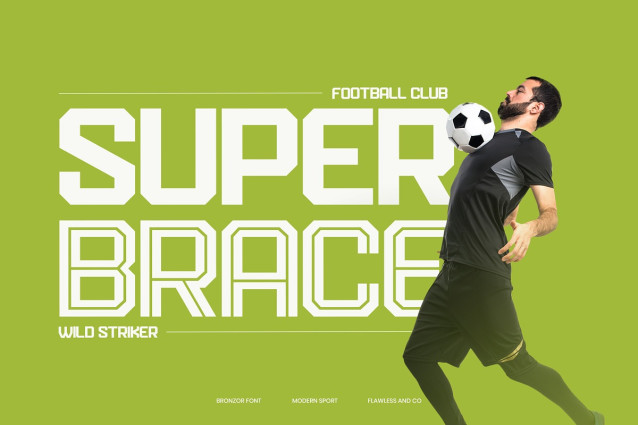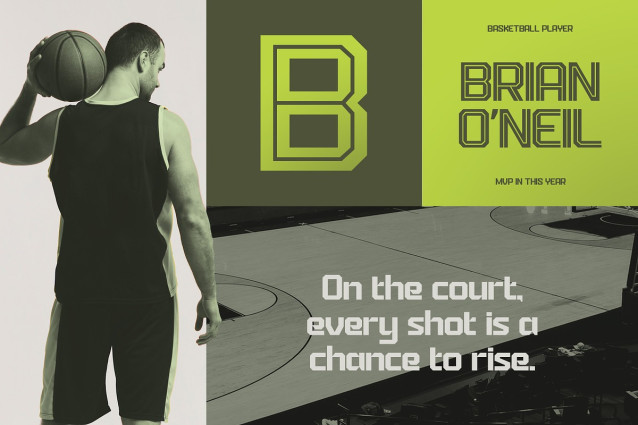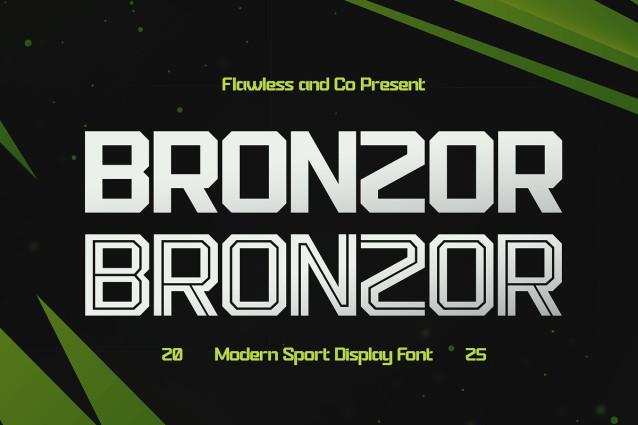
Bronzor Font
Bronzor Font is a bold and powerful sport display font designed to bring energy, strength, and impact to your designs. With its sharp geometric edges and modern athletic vibe, Bronzor is perfect for projects that demand confidence and action. This font captures the essence of sportsmanship and competition, making it an ideal choice for dynamic visuals. Whether used on team jerseys, posters, branding, or merchandise, Bronzor adds a fearless and professional look. Its versatile style ensures that your designs stand out with a commanding presence — from basketball courts to esports arenas.